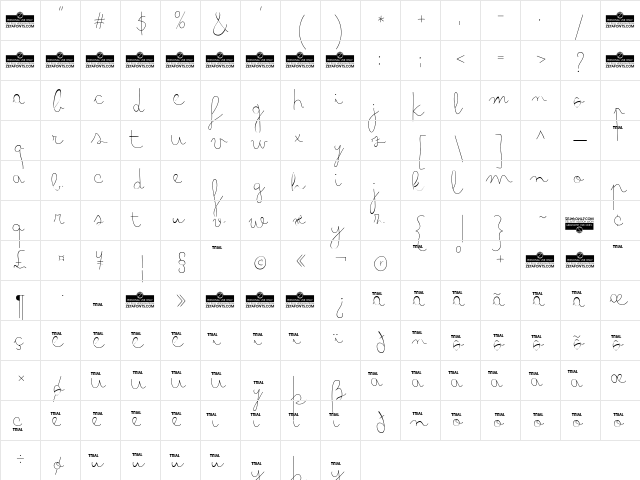
Bimbo Ballpoint
| Foundry | Zetafonts |
| Designer | Francesco Canovaro with Chiara Ghezzi and Niklas Jonsson after Jonathan Calugi |
Design Context for Bimbo Typeface
Bimbo is a composed and adaptable typeface that performs quietly and consistently across a wide range of design contexts.